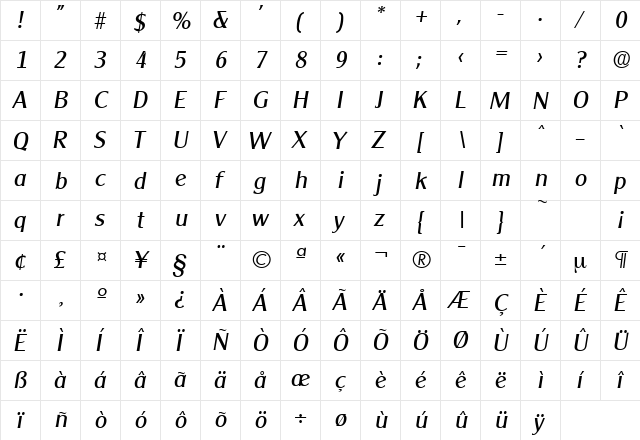
Cleargothic-Serial RegularItalic
Design Context for Cleargothic-Serial Typeface
Cleargothic-Serial takes a clean, functional approach — its unadorned letterforms prioritise legibility and work reliably across screen and print environments. The dynamic lean of this cut emphasises speed and emphasis in any layout.
Font Pairing: Works well alongside a characterful serif or display font that can carry the expressive load while Cleargothic-Serial handles the functional copy.
Pro Tip: Pair Cleargothic-Serial with a display or serif font for headlines — its neutral character makes it an excellent supporting player in complex typographic systems.